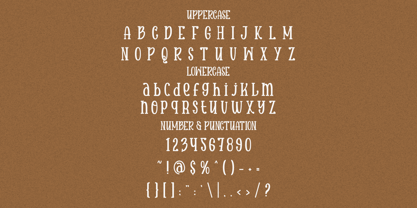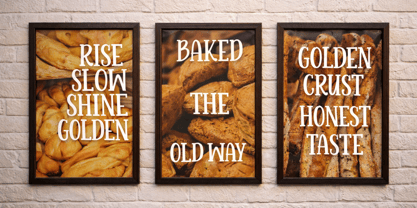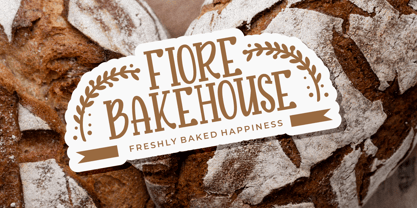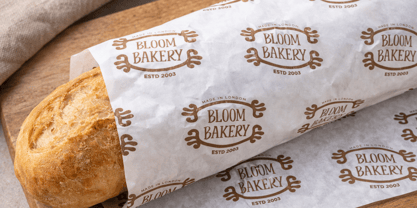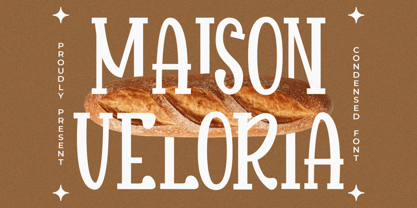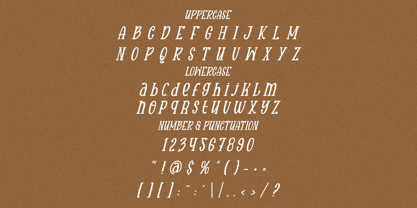
Maison Veloria
by Shanaf
The Maison Veloria Font Family was designed by Yesie Erma Yunita and published by Shanaf. Maison Veloria contains 2 styles and family package options. More about this family
Maison Veloria Condensed Font brings tall narrow letters with clean sans structure. The strokes feel smooth, balanced, and refined with subtle vintage charm. Vertical proportions create a graceful rhythm that saves space in layouts. Thin to medium weight keeps headlines stylish and readable. Curved terminals and selective decorative details add character without noise. The font feels classy, warm, artisanal, and timeless. It works well for logo systems that need elegance and presence. Narrow shapes fit labels, signage, and packaging with limited space. Use it for bakery brands, bread houses, pastry shops, coffee roasters, and gourmet food stores. It also suits menu titles, posters, magazine covers, book titles, greeting cards, and crafted invitations. This typeface helps businesses build a polished identity with memorable letterforms. Tall characters create premium impact on storefront signs and product labels. The condensed width allows longer names to stay neat and strong. It pairs nicely with minimalist sans serif body text or script accents. Use it for artisan bakery logos, café branding, handmade food packaging, restaurant headlines, and advertising materials. It also fits stickers, social media posts, quote graphics, editorial headers, and event promotions. Maison Veloria Condensed Font offers classic taste with modern control. Choose it when your brand needs elegance, warmth, and clear visual recognition.
Designers: Yesie Erma Yunita
Foundry: Shanaf